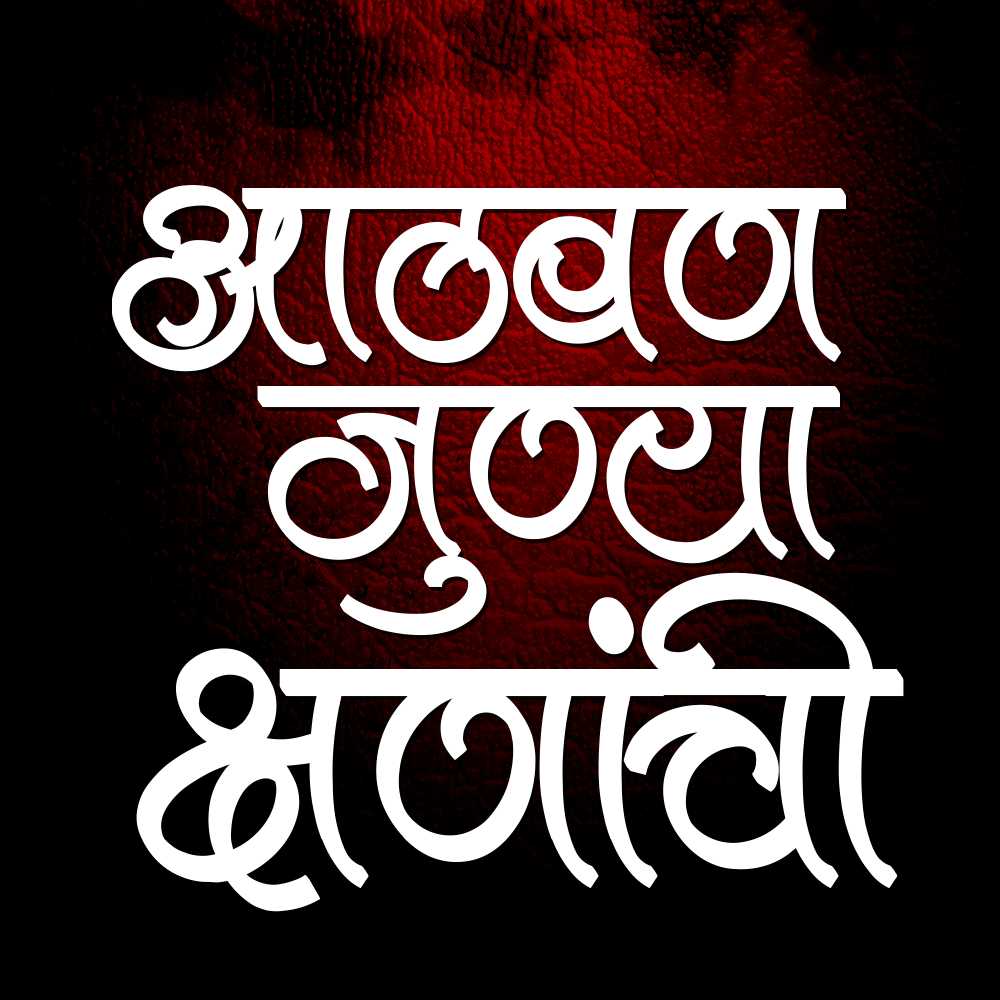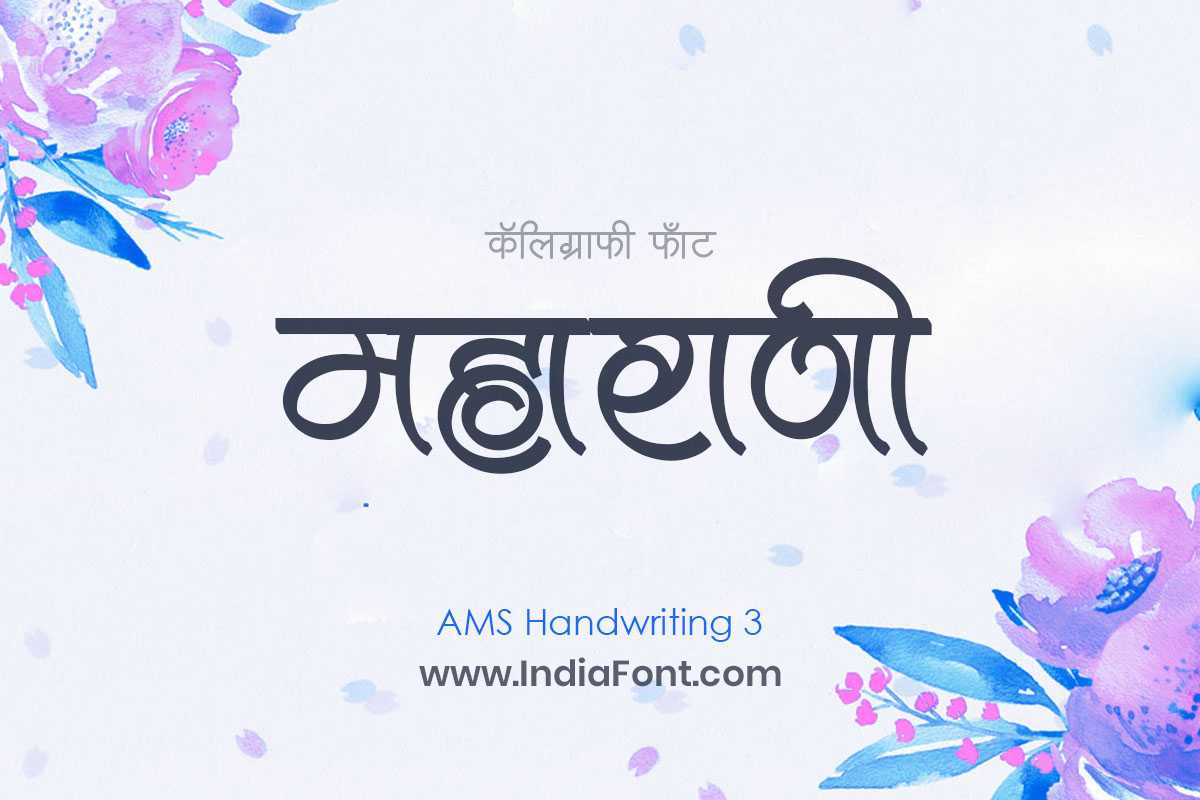
AMS Handwriting 3
Unleash your creativity with AMS Handwriting 3, a captivating calligraphy font that exudes artistic flair. With its expressive letterforms and flowing strokes, this font offers a sense of spontaneity and individuality.
About AMS Handwriting 3 Font
Unleash your creativity with AMS Handwriting 3, a captivating calligraphy font that exudes artistic flair. With its expressive letterforms and flowing strokes, this font offers a sense of spontaneity and individuality. This calligraphy font combines elegance with functionality, making it perfect for various design applications.
AMS Handwriting 3 is a professionally crafted calligraphy typeface that brings clarity and style to your projects. Designed with attention to detail, it supports hindi and marathi characters flawlessly.
Whether you're working on wedding-materials, certificates-awards, product-packaging, or other creative projects, AMS Handwriting 3 delivers consistent performance across both digital and print media. This carefully designed typeface ensures readability and visual appeal in all your design work.
Why Choose AMS Handwriting 3?
AMS Handwriting 3 excels in various design scenarios. Here are the most suitable applications:
About AMS Handwriting 3 Typography Style
AMS Handwriting 3 is a professionally crafted calligraphy font that exemplifies modern Hindi typography design. This free font is perfect for designers seeking versatile design applications.
Available in 1 weight and supporting hindi, marathi scripts, AMS Handwriting 3 offers exceptional versatility for both digital and print media. Whether you're working on wedding-materials, certificates-awards, product-packaging, this carefully designed typeface ensures consistent quality and professional results across all your typography projects.